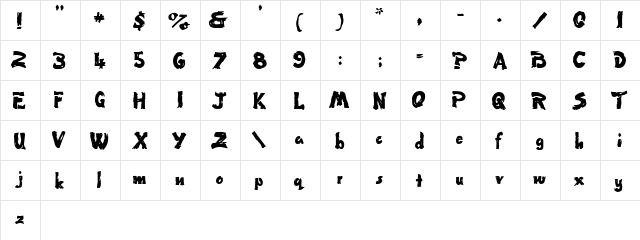
Wet Paint Normal
Design Context for Wet Paint Typeface
Wet Paint is a composed and adaptable typeface that performs quietly and consistently across a wide range of design contexts.